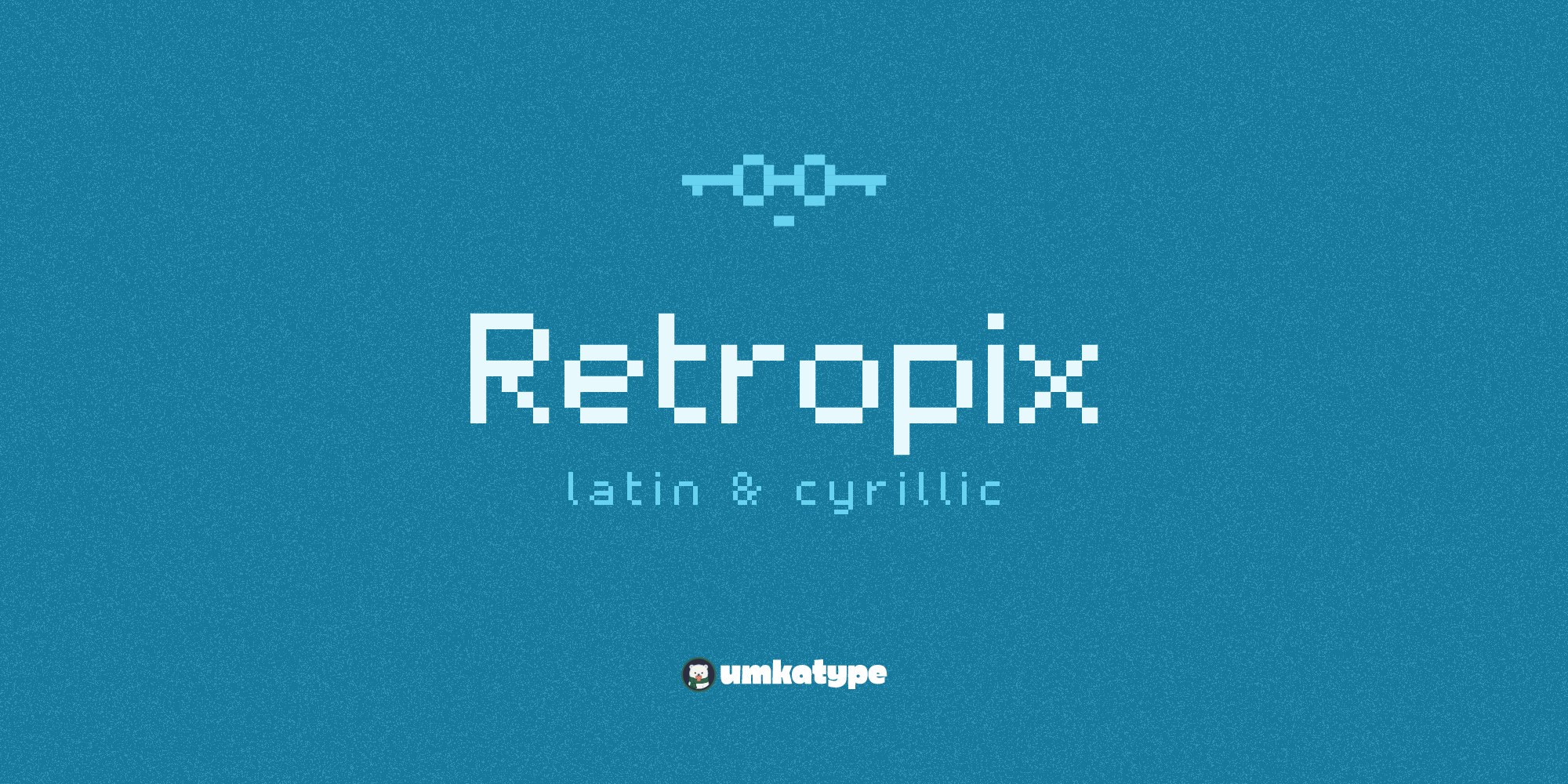
The Retropix Font excels in various design applications including retro gaming interfaces, vintage arcade signage, 80s-themed branding projects, nostalgic poster designs, pixel art graphics, retro tech startup logos, vintage computer aesthetics, gaming merchandise, cyberpunk-inspired designs, and digital art projects that celebrate classic video game culture and retro-futuristic visual styles.
What makes the Retropix Font exciting is its authentic recreation of classic pixel-based typography that instantly transports viewers back to the golden age of arcade gaming and early computer graphics. This typeface captures the distinctive blocky, pixelated aesthetic of 8-bit and 16-bit era displays while maintaining modern readability standards and digital optimization. The font's nostalgic character evokes powerful memories of classic gaming experiences, making it perfect for brands and projects seeking to tap into retro gaming culture and vintage tech aesthetics.
The Retropix Font family typically includes multiple pixel density variations, ranging from ultra-low resolution 8-bit styles to higher resolution 16-bit and 32-bit inspired versions. These family options often feature different weight variations within the pixel constraints, along with specialized characters and symbols commonly found in vintage computer systems and gaming interfaces.
Gaming industry professionals and retro design enthusiasts consistently choose Retropix Font Free Download for projects requiring authentic vintage gaming aesthetics and nostalgic digital charm. This typeface performs exceptionally well in gaming applications, retro-themed marketing campaigns, and projects targeting audiences with strong connections to classic video game culture. The font's distinctive pixel character makes it instantly recognizable and emotionally engaging. Download Retropix Font Free Download today to bring authentic retro gaming typography to your projects, creating compelling visual experiences that celebrate the timeless appeal of pixel-perfect design and vintage digital aesthetics.